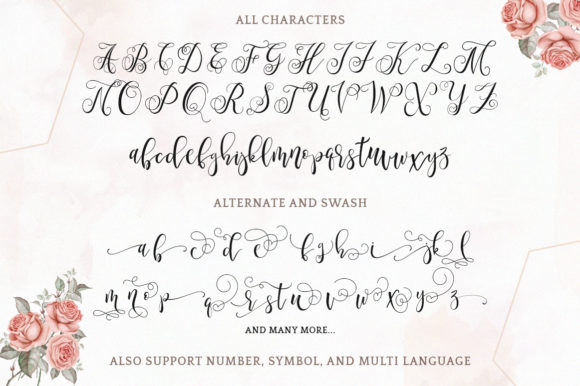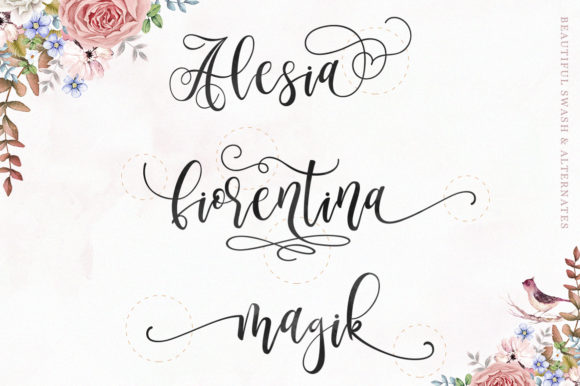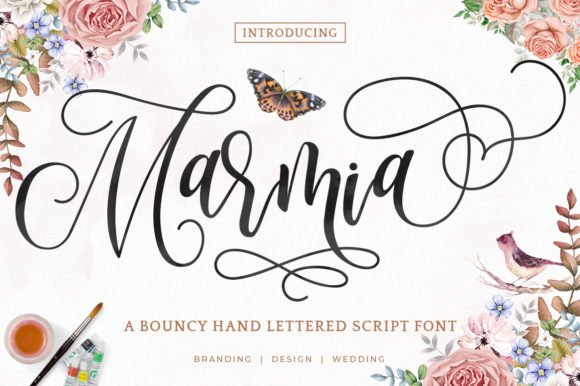
Freebie Wednesday: Marmia Font
Marmia Font is a bouncy hand-lettered script font and it’s free at Creative Fabrica for another 5 days so you better make sure you don’t miss out!